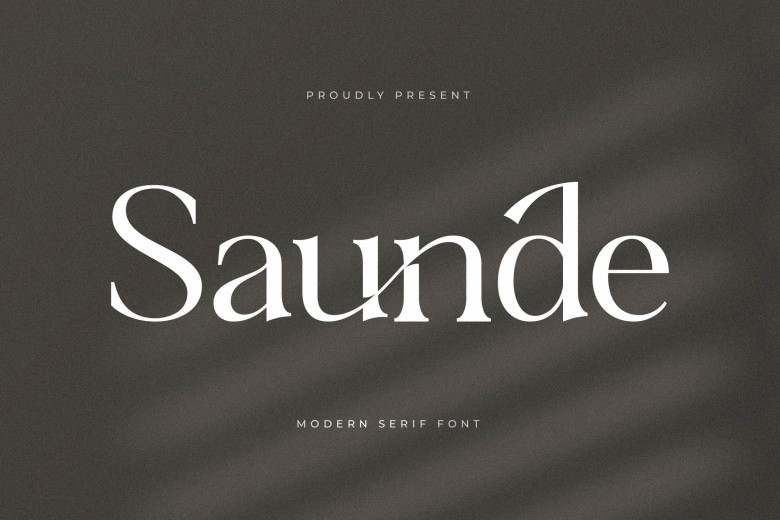
Saunde Font
Saunde Font is a modern and classic font, it is a unique style and fancy fontI. It is great for an elegant & luxury logo; book or movie title design, fashion brand, magazine, clothes, lettering, quotes, and much more! This font is PUA encoded which means you can access that is like all of the glyphs and swashes effortlessly!
Saunde Serif Font